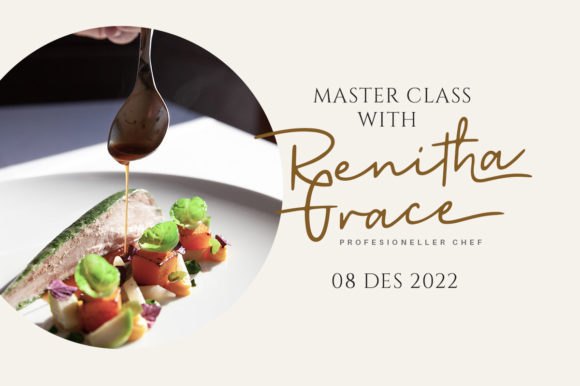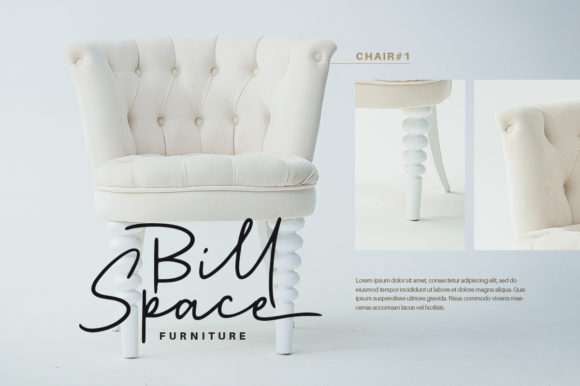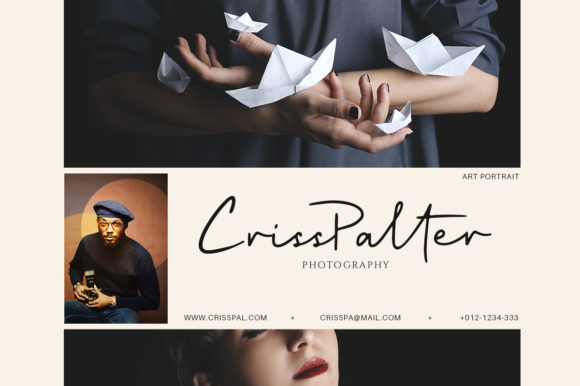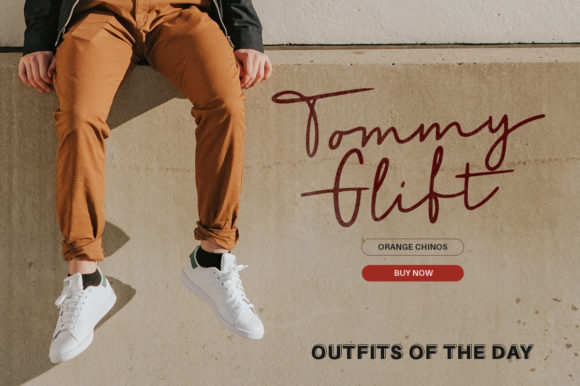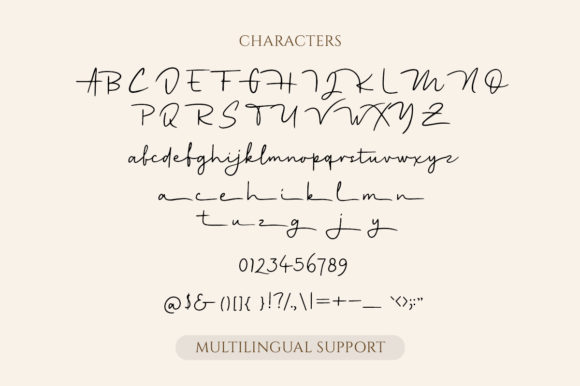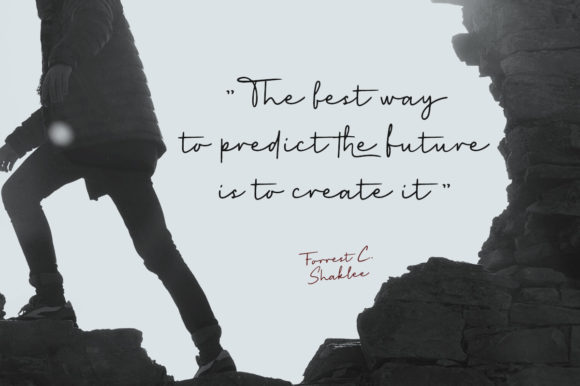
Introduction to Holymore Font
Have you ever stumbled upon a beautiful handwritten note in an old book or a lovely letter from a loved one? The feeling of nostalgia and romance that comes with it is truly unforgettable. That’s exactly what the Holymore Font aims to evoke in your creative projects. As a modern and delicate handwritten font, it’s designed to add a touch of warmth and elegance to your designs.
Whether you’re working on a wedding invitation, a baby shower card, or a romantic poem, the Holymore Font is the perfect design resource to bring your ideas to life. With its high-quality design and endless variations, this font is a valuable asset for designers looking to add a personal touch to their creative projects.
Key Features of Holymore Font
Honest Review: Holymore Font
I recently stumbled upon the Holymore Font while searching for a high-quality design resource to enhance my creative project. I must say, it exceeded my expectations.
- Unique Character Set: The Holymore Font boasts an extensive character set, making it ideal for any creative project.
While the Holymore Font is an excellent addition to any design resource collection, I do have a few minor complaints:
- Not Ideal for Headlines: The font may not be the best choice for headlines due to its subtle design.
- Could Use More Weights: I found the font’s weight options to be somewhat limited, making it less versatile than other fonts.
Overall, I’m impressed with the Holymore Font. Its unique character set, high-quality raster images, and free download make it a valuable addition to any design resource collection. While it has some limitations, it’s an excellent choice for creative projects that require a subtle, high-quality font.
Tips for Getting the Most Out of Holymore Font
For a creative project, use Holymore Font in combination with other design elements to create a unique and eye-catching design. Experiment with different font sizes and colors to add visual interest. You can also use the font to create a consistent brand identity.